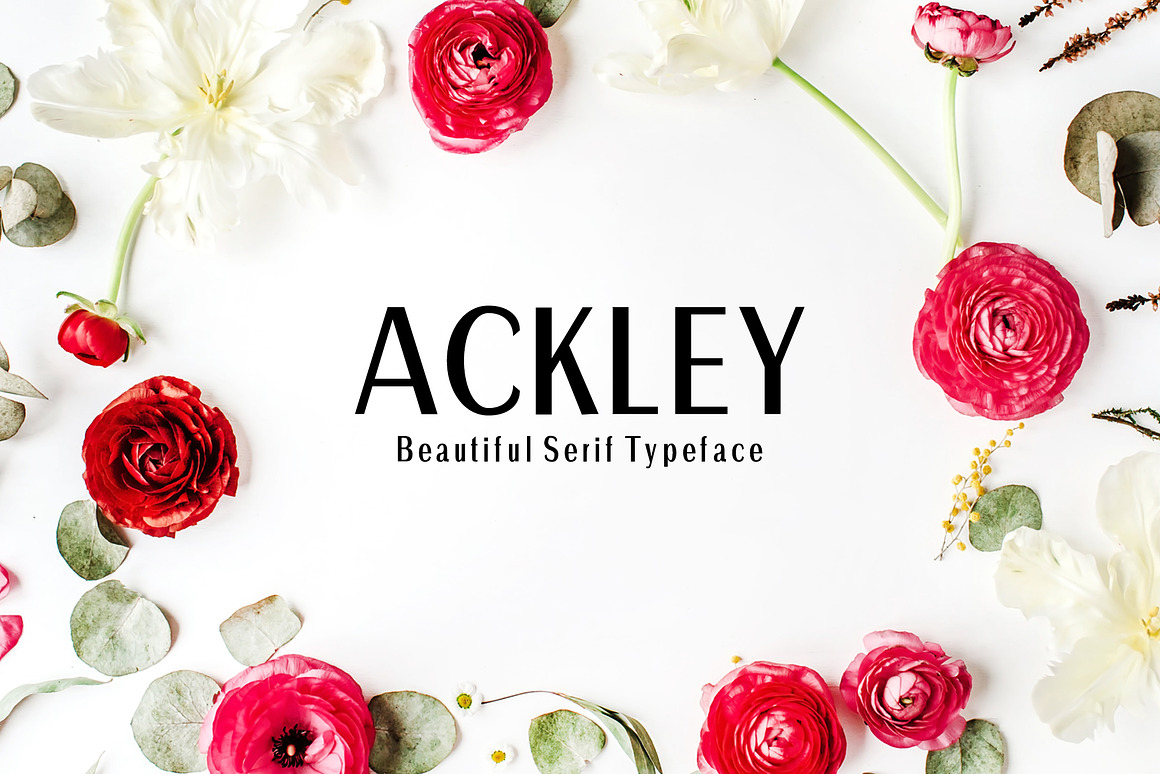
Ackley Sans Serif Font Family
Ackley Sans Serif Font Family is perfect for modern corporate branding, tech startup websites, mobile app interfaces, digital marketing campaigns, contemporary signage, clean editorial layouts, minimalist product packaging, and professional presentation materials.
Ackley Sans Serif Font Family is exciting because it delivers exceptional clarity with geometric precision and humanist warmth, creating perfect balance between technical functionality and approachable design. Its clean architecture and optimized letterforms ensure outstanding performance across all digital platforms and print applications.
Ackley Sans Serif Font Family family includes thin, light, regular, medium, bold, and black weights with corresponding italic styles, providing designers with twelve comprehensive font variations for complete typographic flexibility.
Ackley Sans Serif Font Family Free Download represents cutting-edge typography engineered for contemporary communication needs. This meticulously crafted typeface collection showcases superior technical execution through its perfectly balanced proportions and consistent character spacing that enhances readability across diverse media applications. The font's neutral yet distinctive personality makes it ideal for technology companies, financial services, healthcare organizations, and creative agencies seeking professional visual identity solutions.
Digital designers consistently choose Ackley Sans Serif Font Family for its exceptional versatility and cross-platform reliability. The font's optimized rendering ensures crystal-clear display quality from mobile screens to large format displays, maintaining consistent brand representation regardless of viewing context. Its comprehensive weight range provides excellent typographic hierarchy for complex information architecture and user interface design requirements.
The Ackley Sans Serif Font Family download includes extensive Unicode support, covering Western European, Eastern European, and Cyrillic character sets for international project compatibility. This broad language coverage ensures seamless implementation across global markets and multilingual applications. The font's technical precision and careful baseline alignment make it particularly valuable for responsive web design and cross-device compatibility requirements.
Contemporary businesses appreciate Ackley Sans Serif Font Family's ability to project innovation while maintaining timeless professionalism. Its adaptable nature works equally well in conservative corporate environments and forward-thinking creative contexts, making it an indispensable typography resource for organizations seeking to establish credible, modern brand presence in today's competitive marketplace.